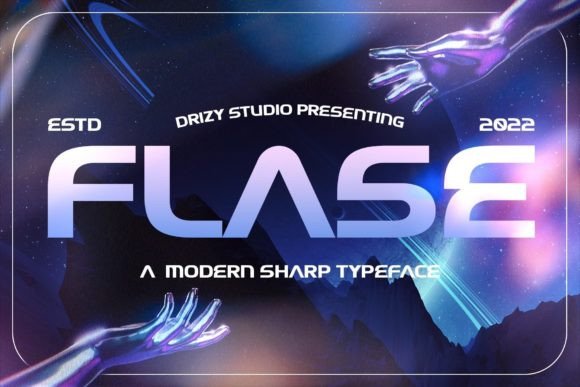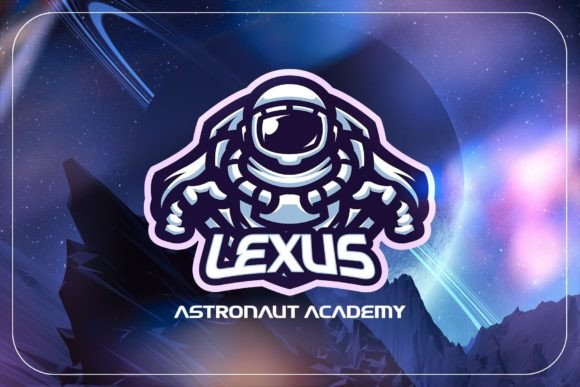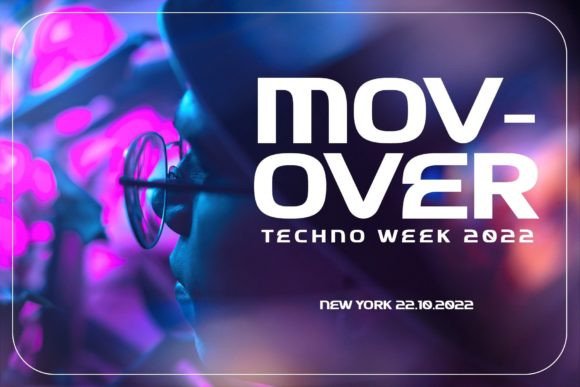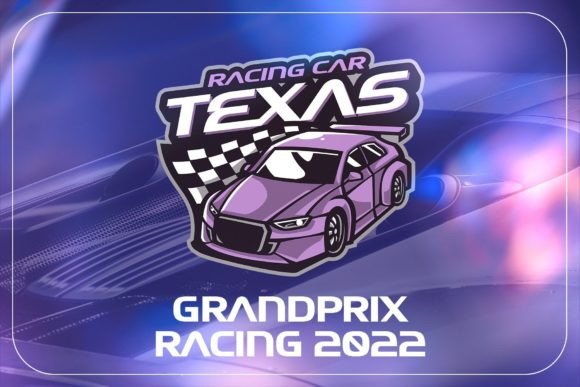
Flase Font: Modern Display Font for Futuristic Logo Design
About the Flase Font
Crafted with precision, the Flase Font is ready to bring your ideas to life. Flase is a modern and cool display font. Its fresh and futuristic look makes it suitable for a large variety of projects, adding an innovative accent to your creations.
Flase excels as a display font for headlines, logos, and short, impactful statements in branding materials and posters. Its strong geometry works particularly well for tech-related projects, product packaging with a futuristic aesthetic, and promotional materials emphasizing innovation. Avoid using Flase for body text or lengthy paragraphs; its boldness can become overwhelming and hinder readability.
The font’s core personality is modern and bold, with a slightly rebellious edge. This makes it ideal for brands aiming for a cutting-edge, forward-thinking image.
Consider pairing Flase with a clean sans-serif like Open Sans for body copy to create contrast and balance. For a more sophisticated feel, a classic serif like Garamond or a geometric sans-serif like Montserrat would also complement its strong lines.
Flase Font Usage Examples
Flase Font Example